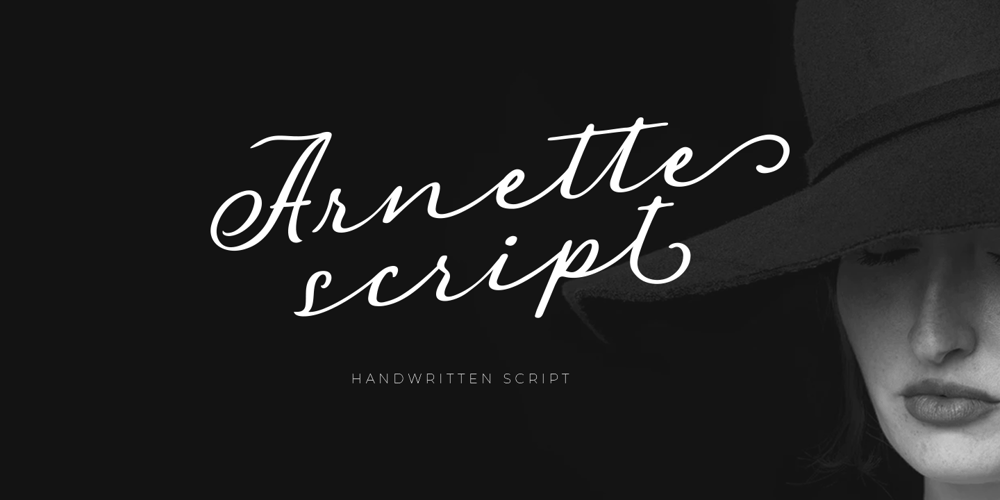
Arnette Font Family was designed by Hendry Juanda and published by Letterhend. Arnette contains 1 styles and family package options. Introducing, Arnette handwritten script. Arnette is a script font that is perfect for quotes, branding, invitation, packaging, headline, logotype, etc.Features : uppercase & lowercase numbers and punctuation multilingual alternates and ligatures PUA encoded We highly recommend using a program that supports OpenType features and Glyphs panels like many of Adobe apps and Corel Draw, so you can see and access all Glyph variations.